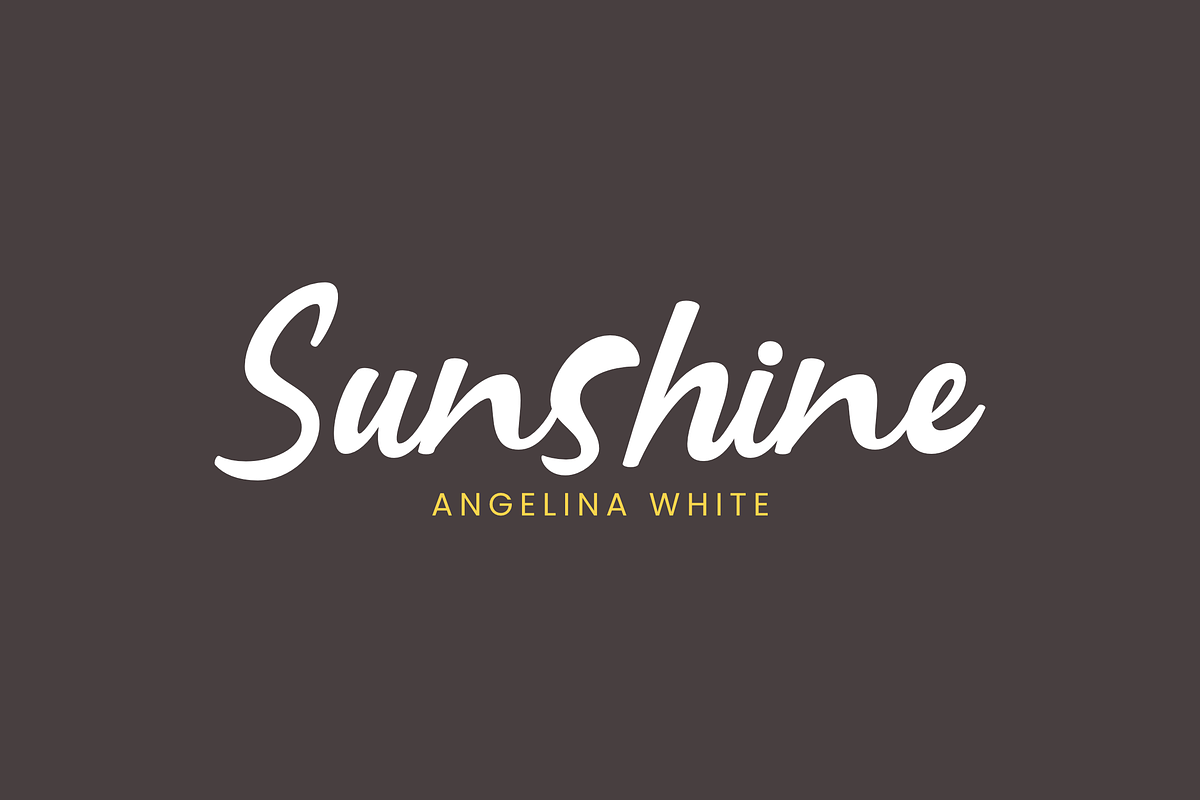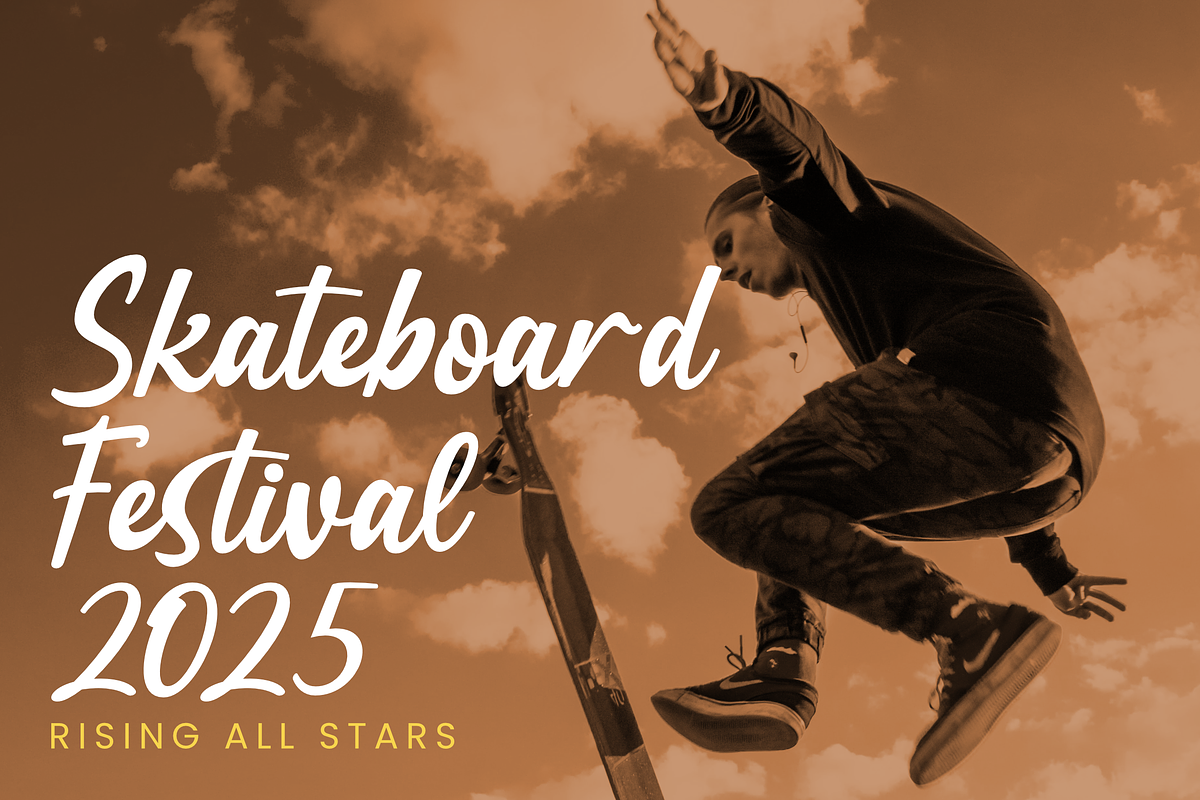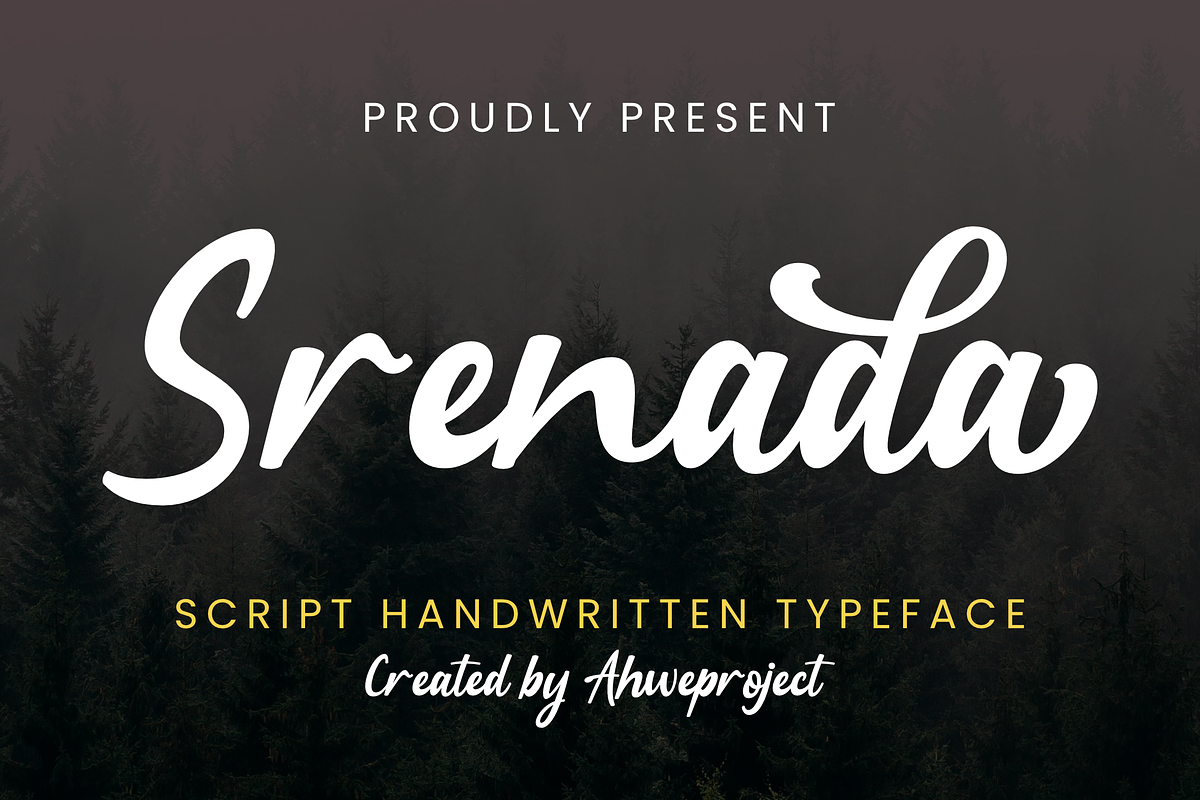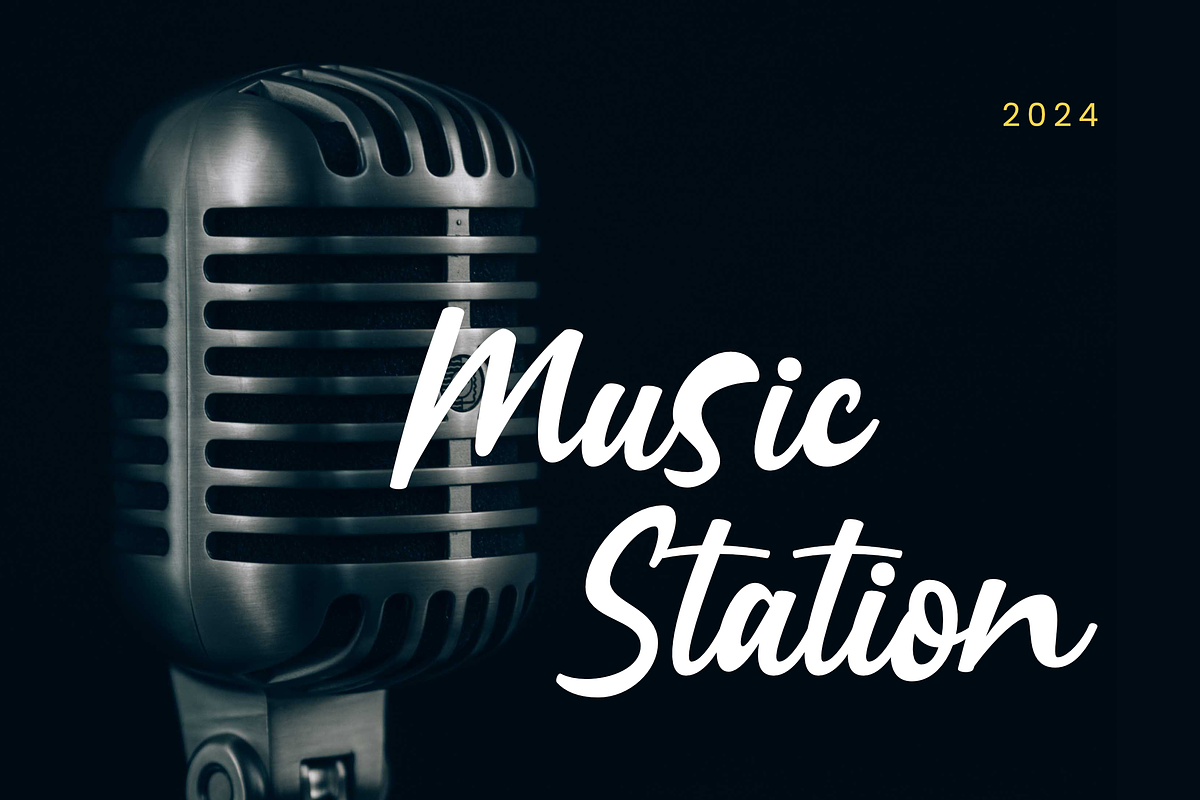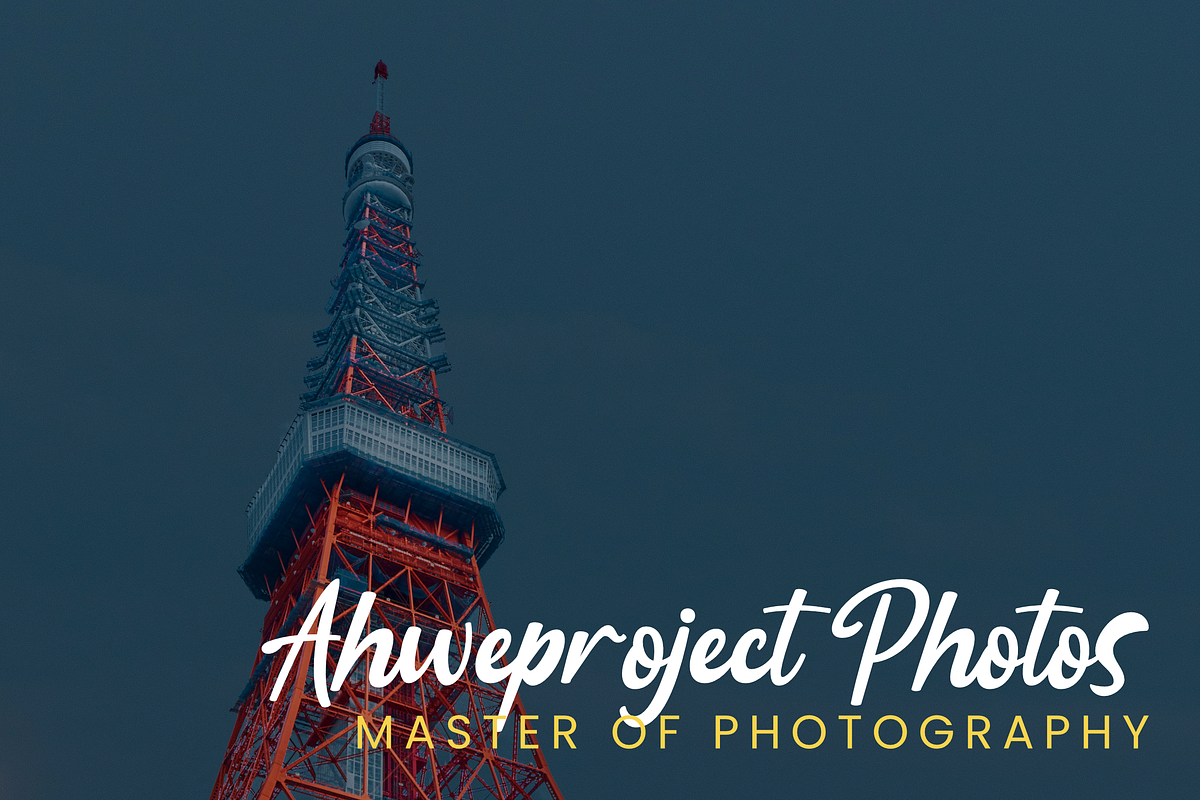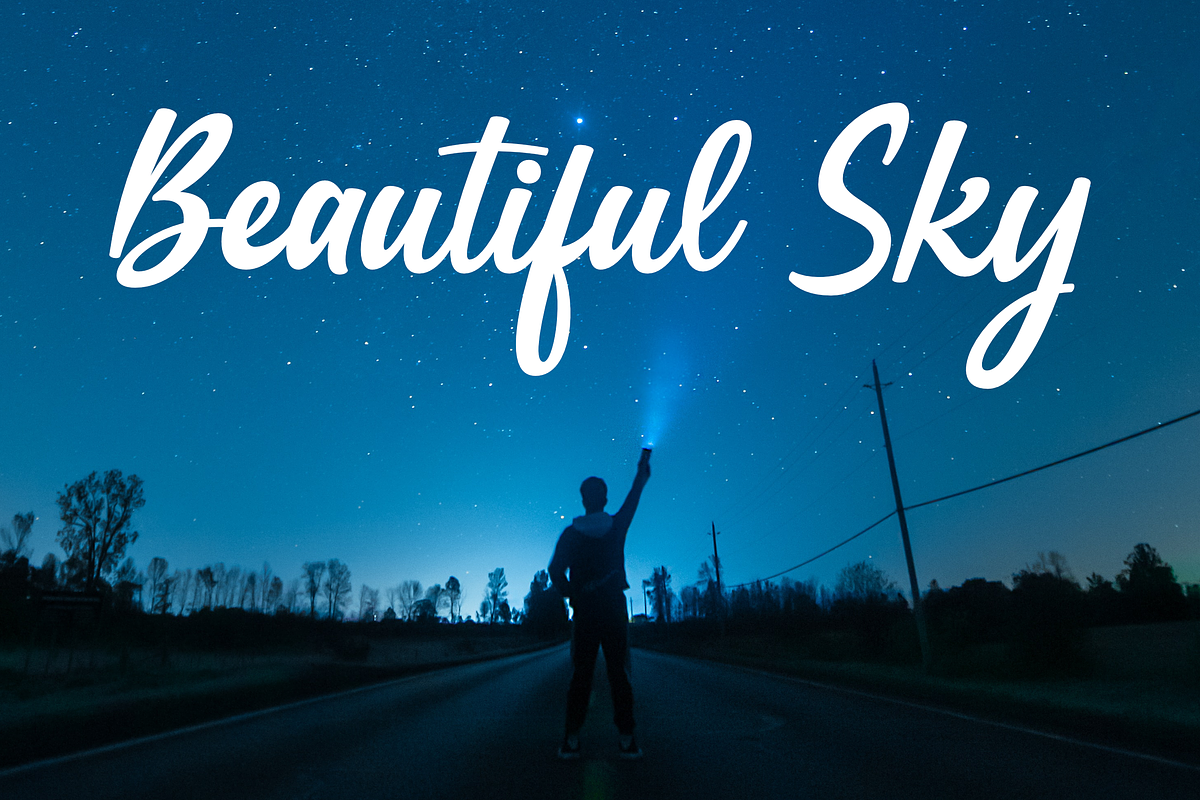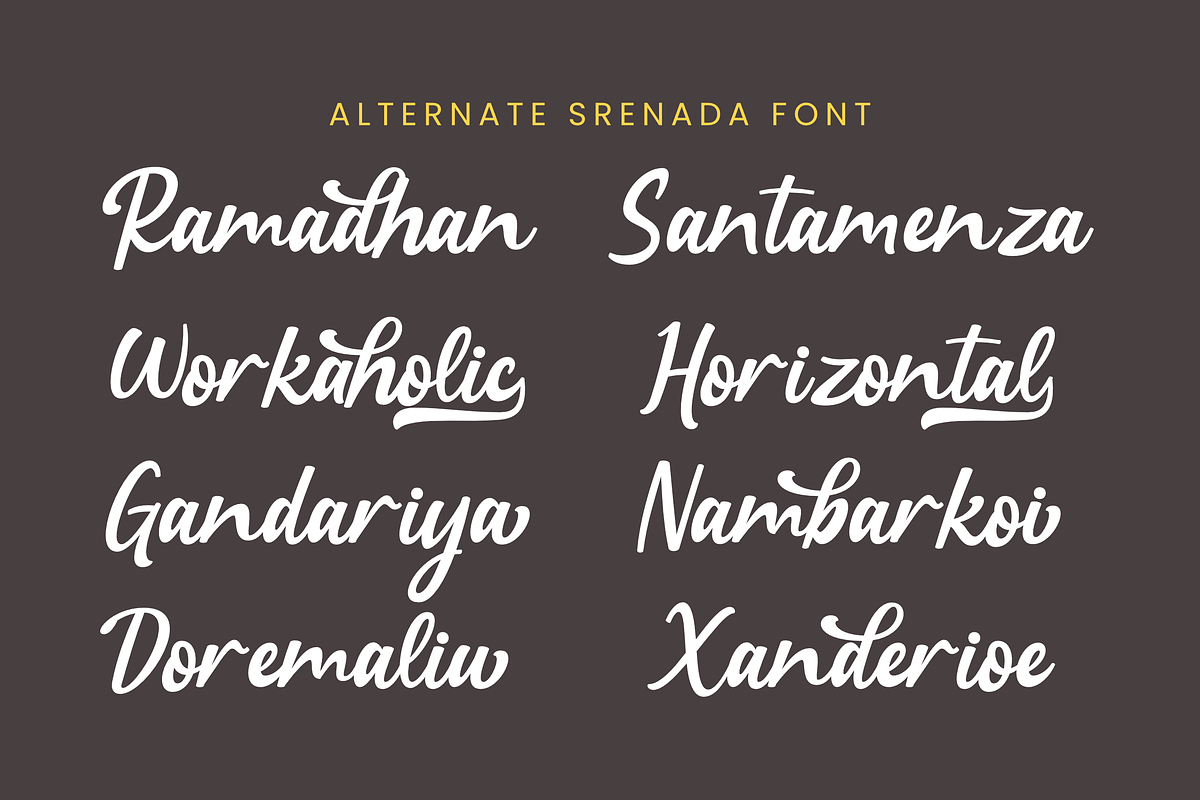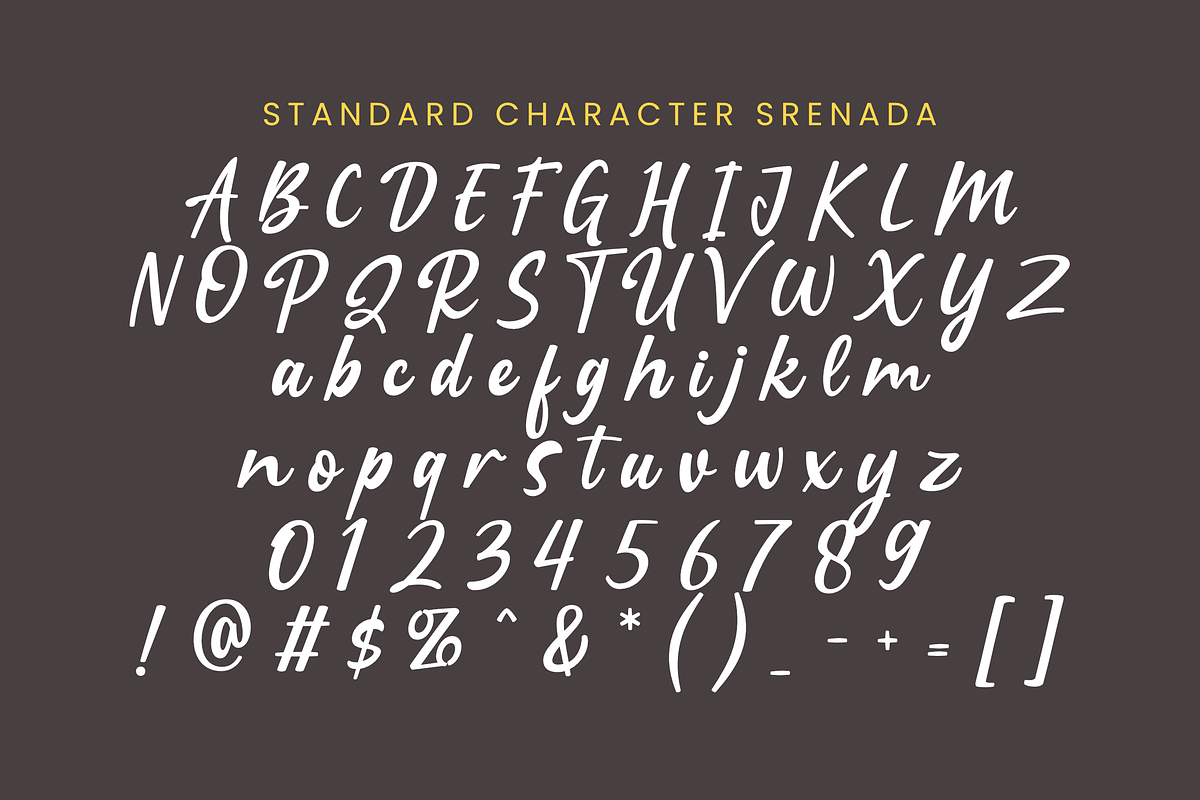
Srenada
Srenada, a captivating handwritten script that exudes charm and authenticity with its casual and swift strokes. The font’s relaxed nature makes it a versatile asset for various design needs. Srenada springs to life when you access Ligature and Alternates in its OpenType panel, creating two diverse and engaging styles. Its perfect harmony with elements of homeware designs, branding projects, logo design, quotations or product packaging sets Srenada apart from the crowd. It can also perform well when used as an elegant text overlay on any background image. Embrace the versatility and charm of Srenada, and see how it can transform your creative project.